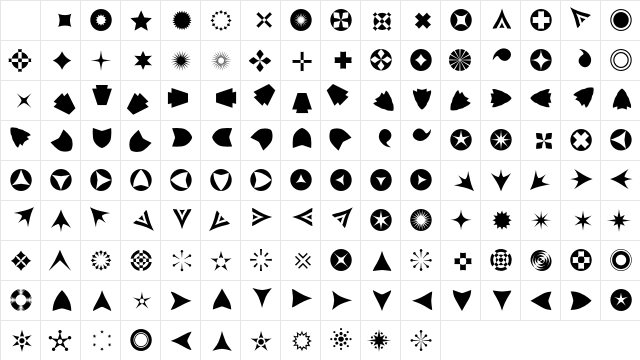
Altemus BordersOne Free Font
Altemus BordersOne
Style: BordersOne
Design Context for Altemus
Altemus is a composed and adaptable typeface that performs quietly and consistently across a wide range of design contexts.